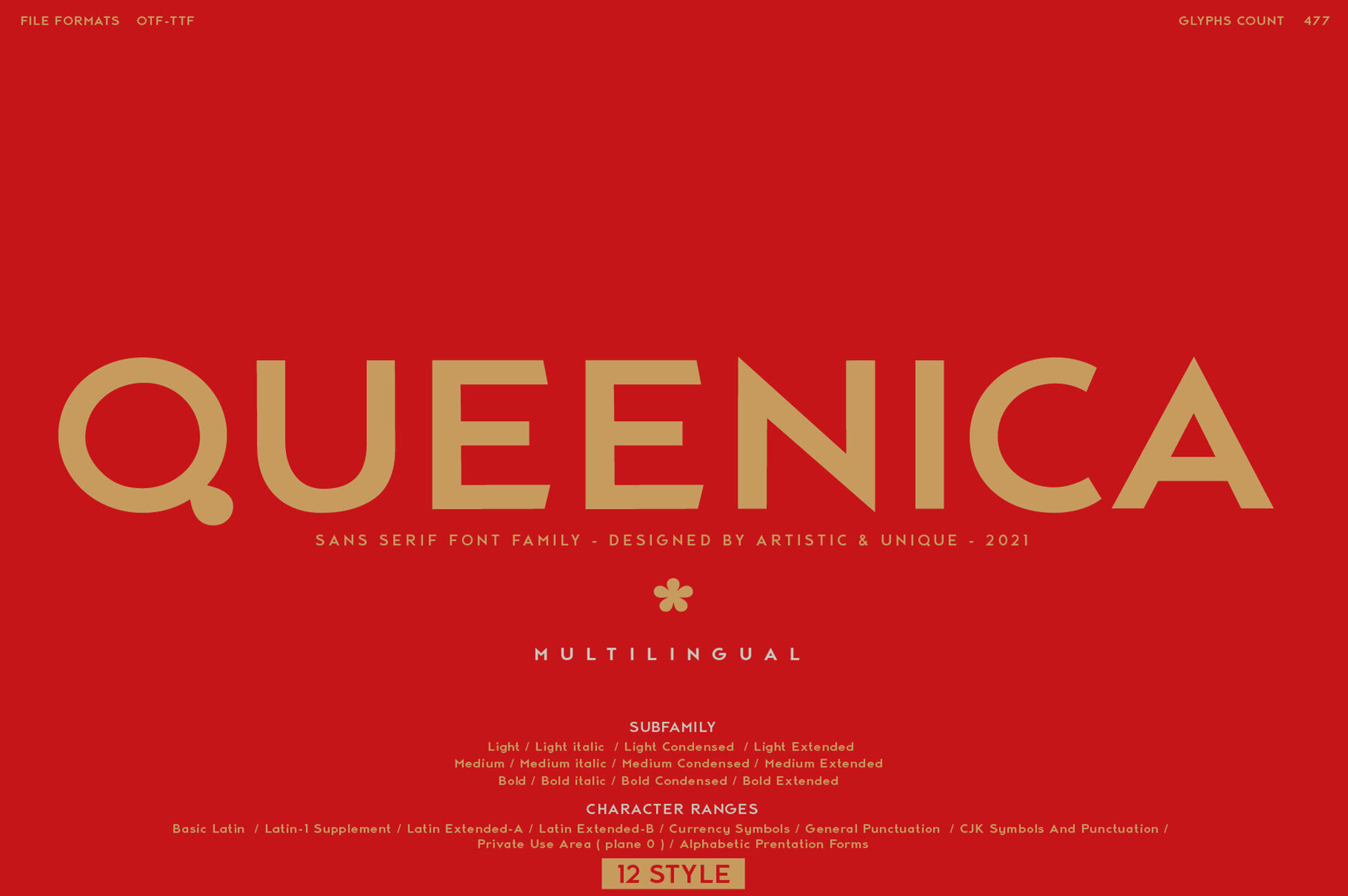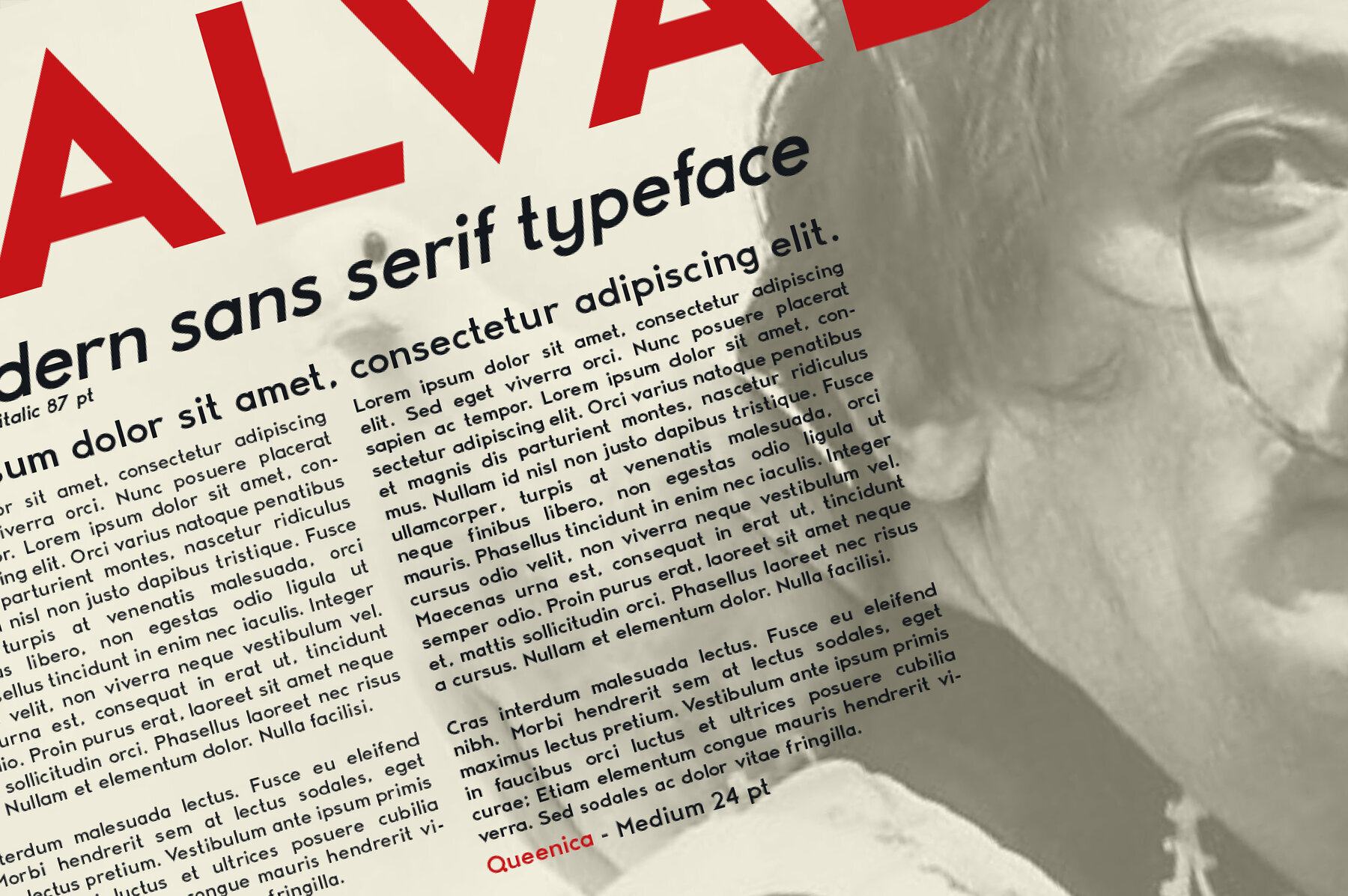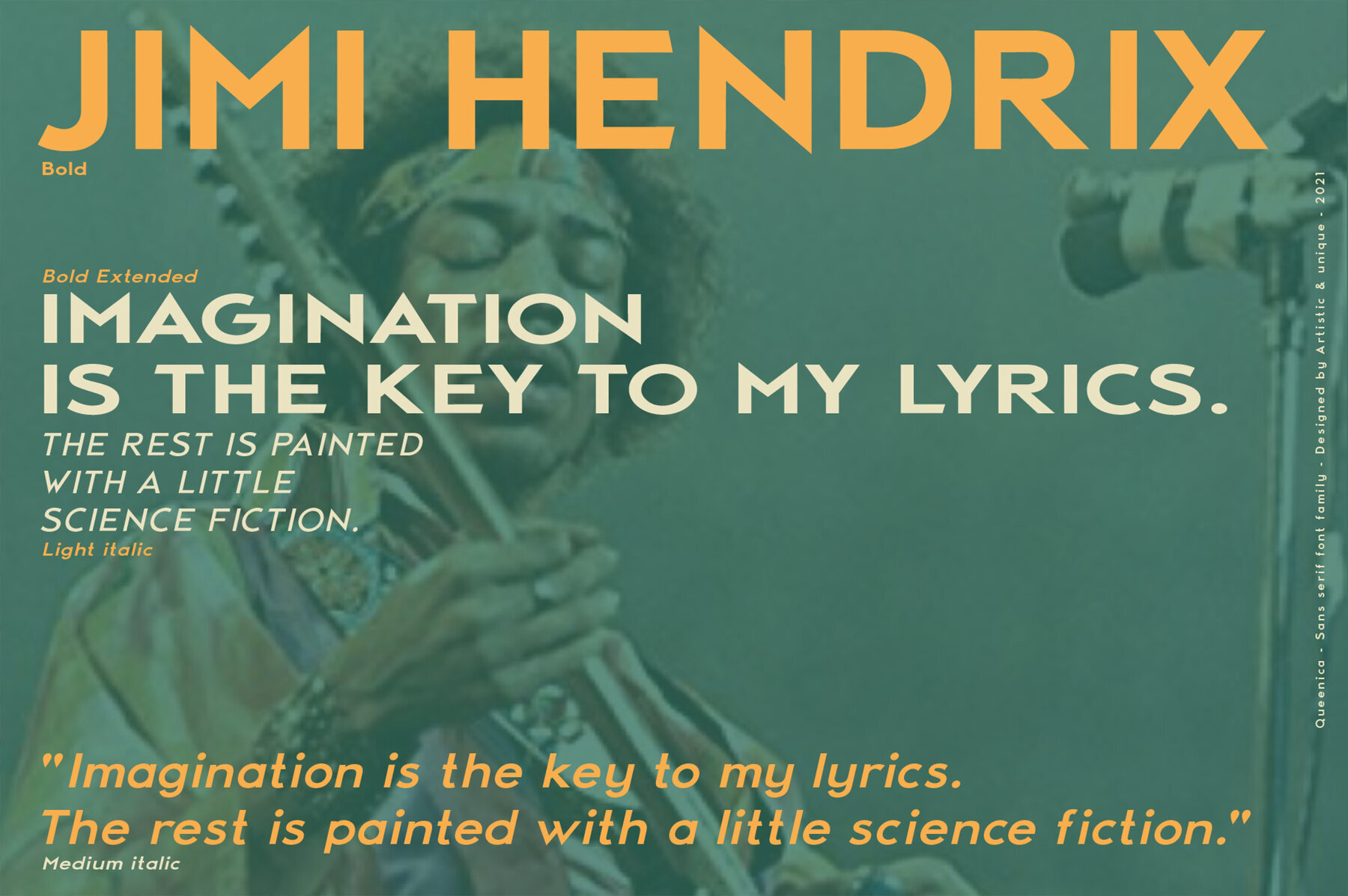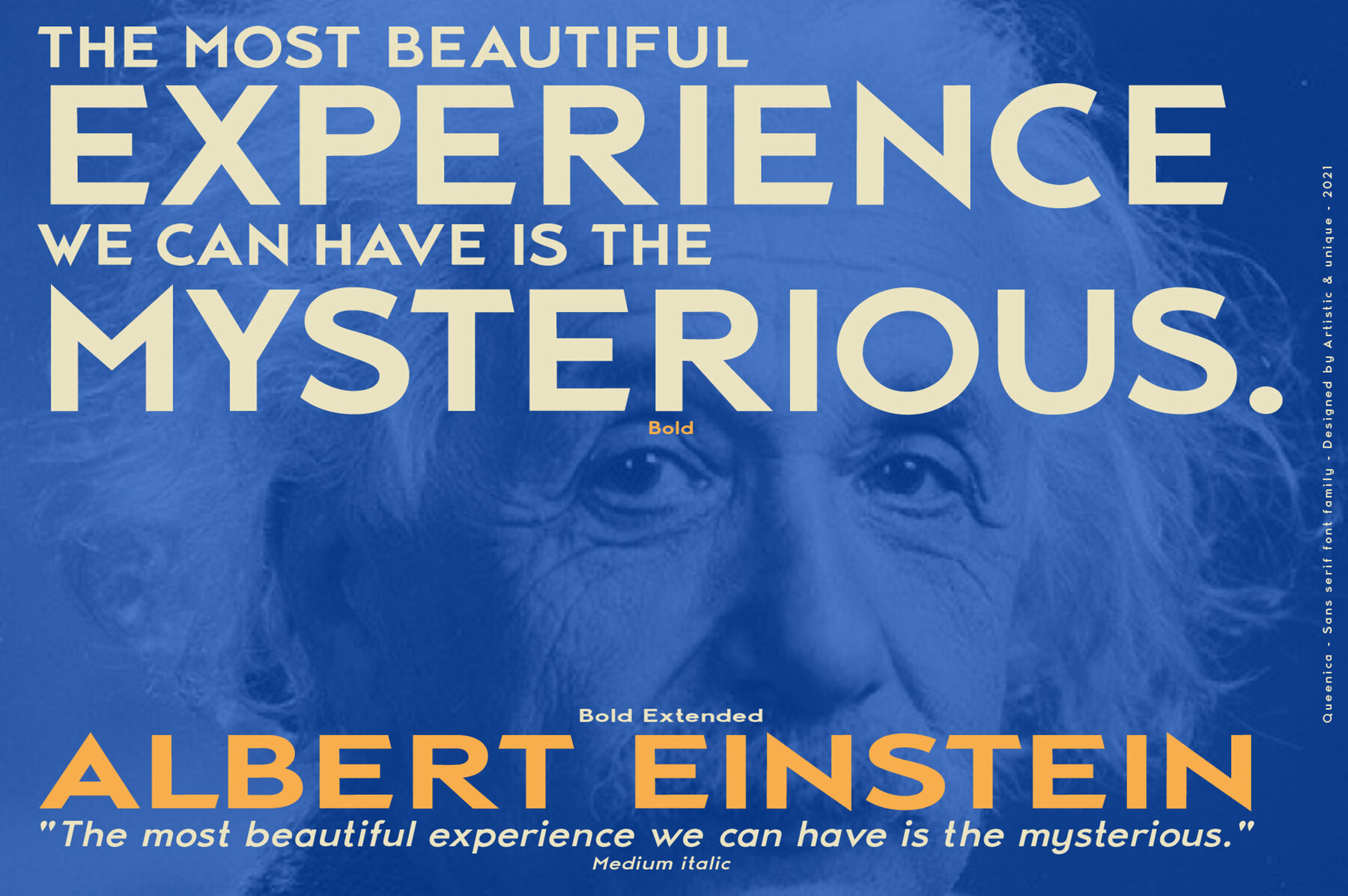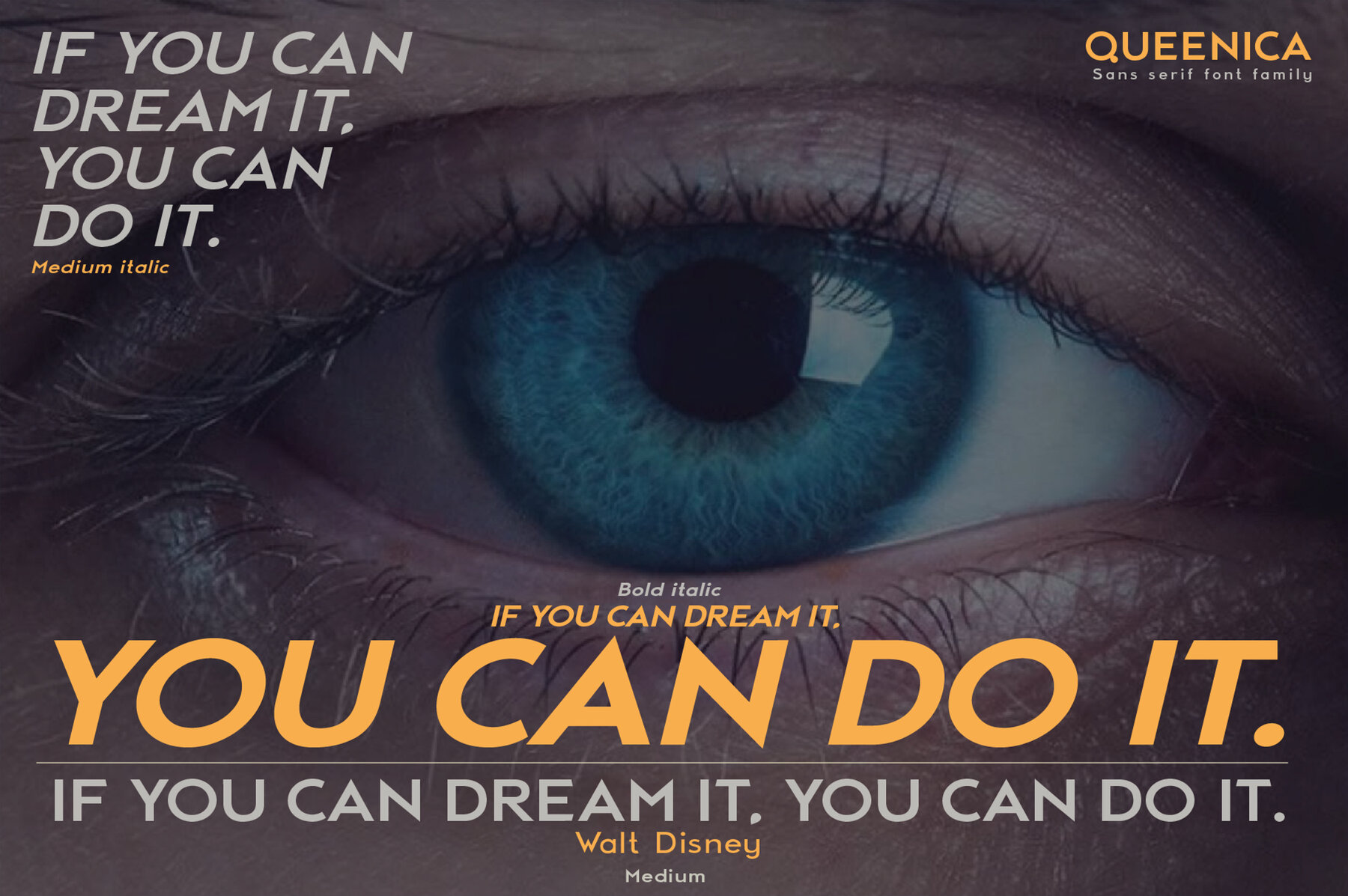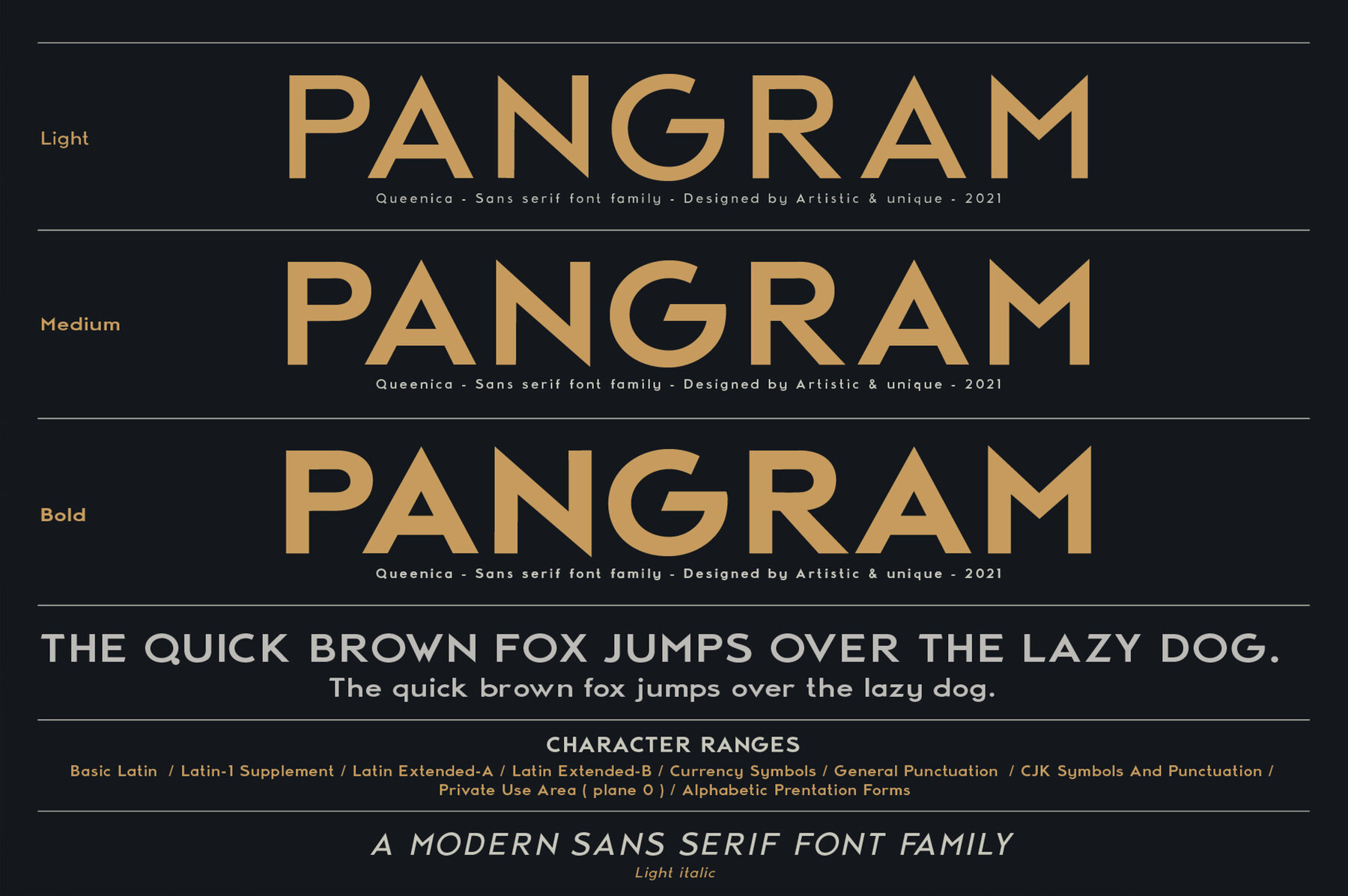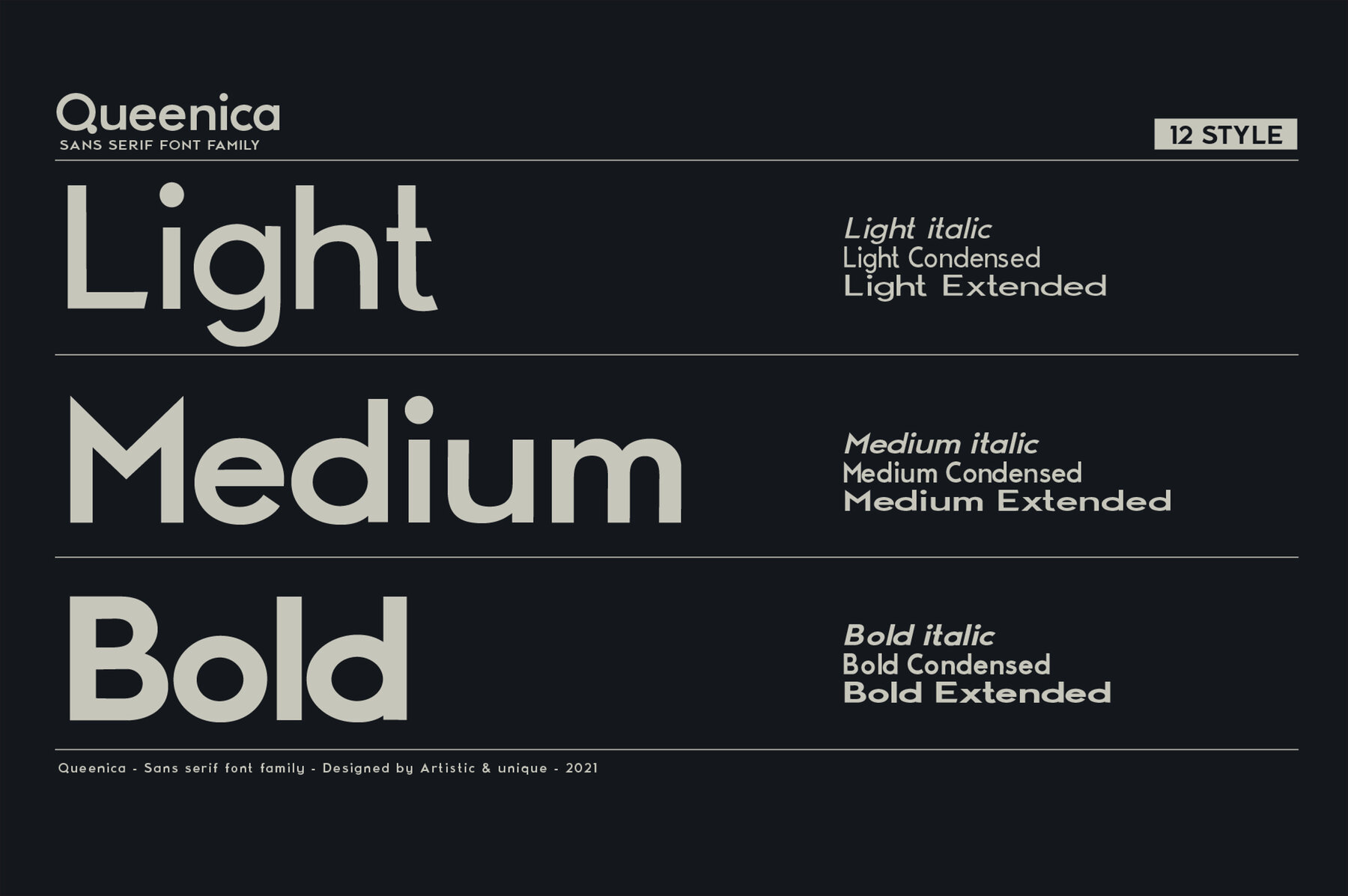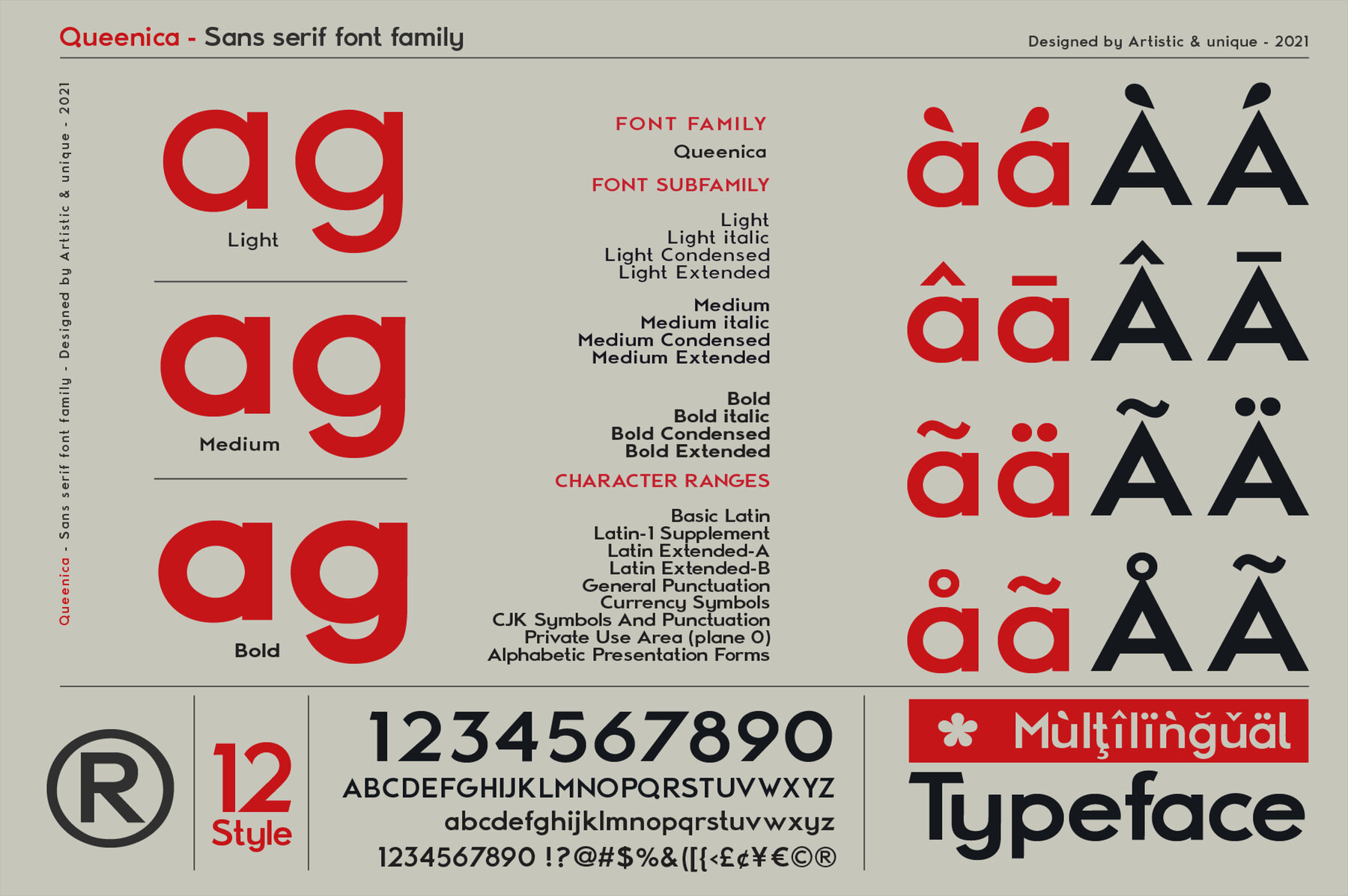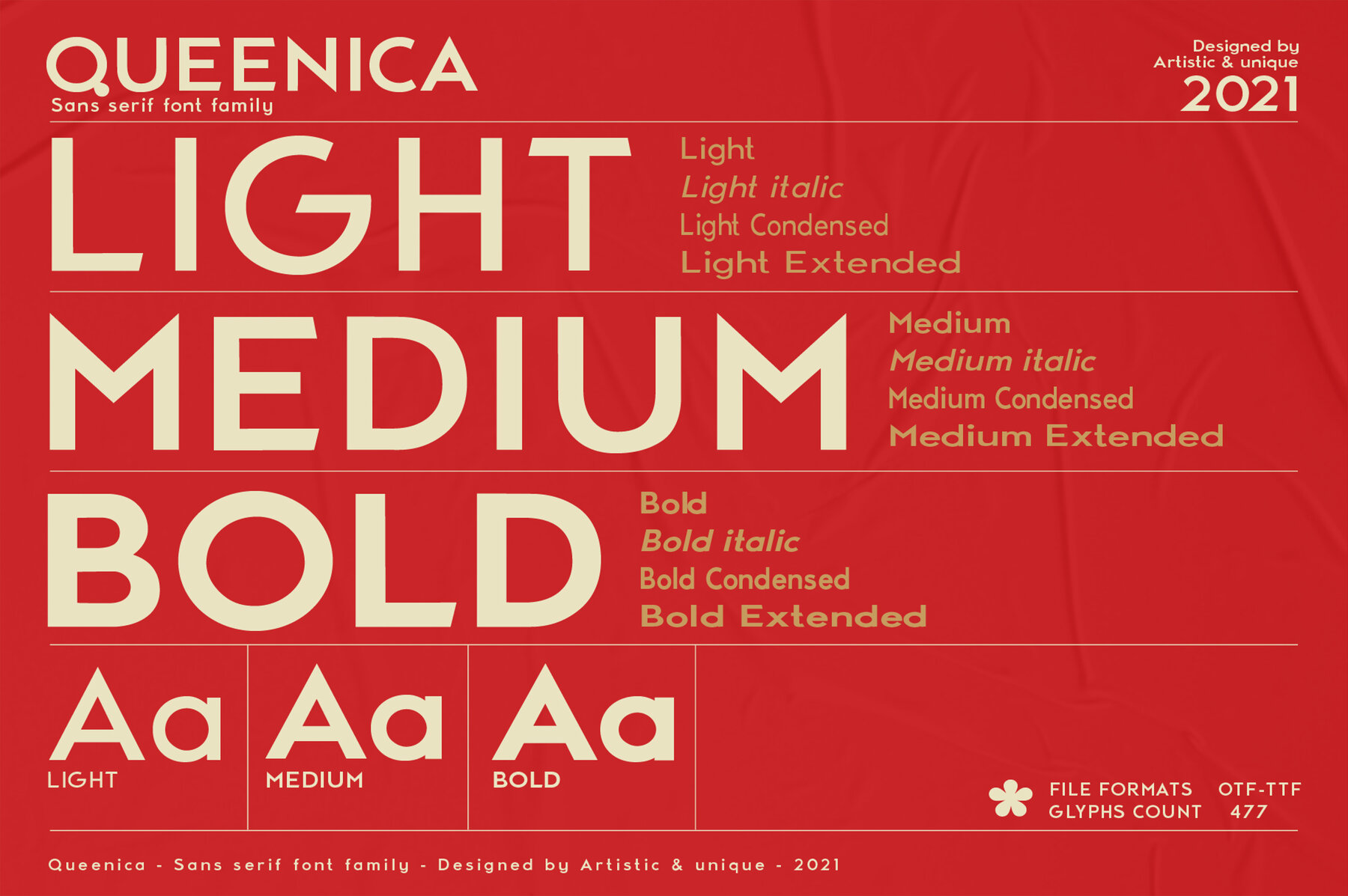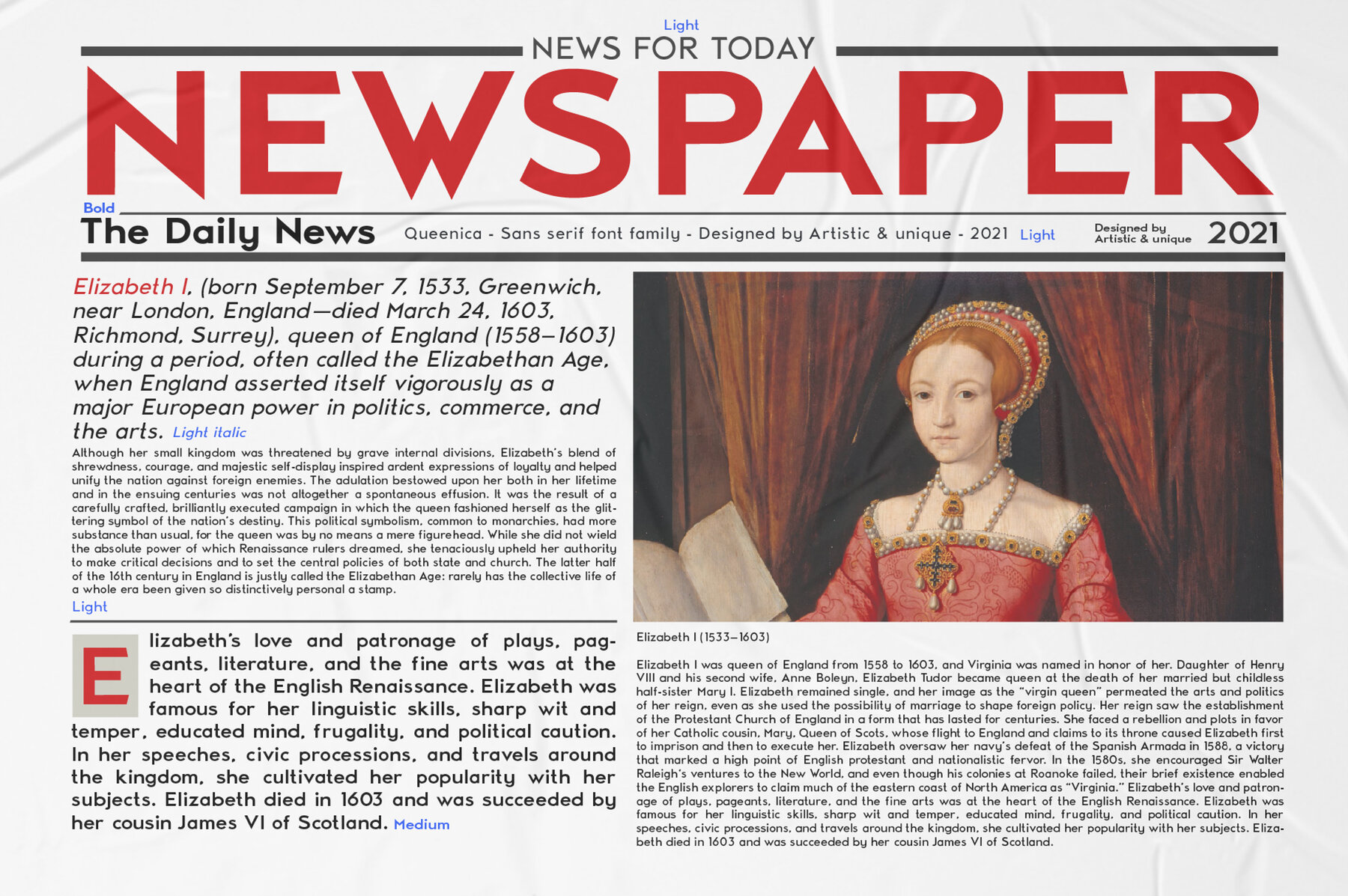
Queenica Font
Queenica proudly stands as a modern sans serif font, aimed at elevating creativity with its multifaceted styles. Noted for its clean lines and unique structure, Queenica adapts seamlessly to a wide range of applications, from editorial and web design to branding and advertisements. The font's diverse styles cater to any creative vision, be it minimalist body text or striking, bold headlines. Ideal for numerous media, Queenica enhances the visual appeal of books, magazines, logos, and invitations. Its adaptability ensures it contributes effectively to the aesthetic of both digital and print platforms.Queenica: Versatile Sans Serif Font Family